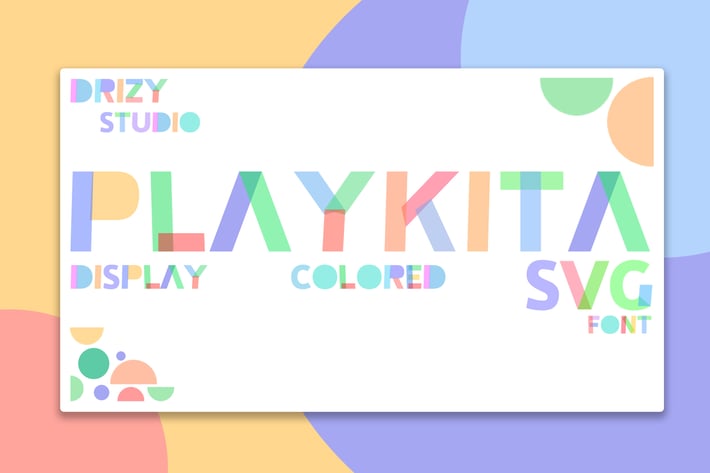
Playkita - Colored SVG Font
Playkita is a Colored SVG Font from Drizy studio. Offering all the basic styles you will need especially for playful and colorful theme project.